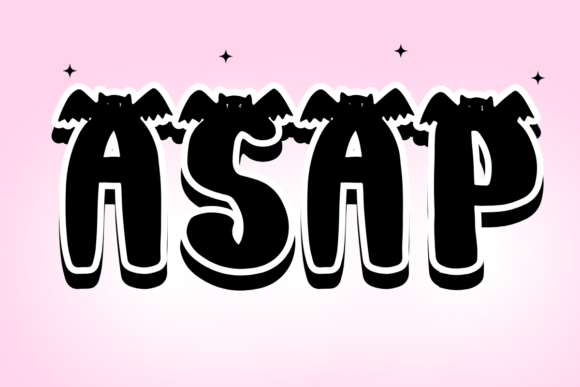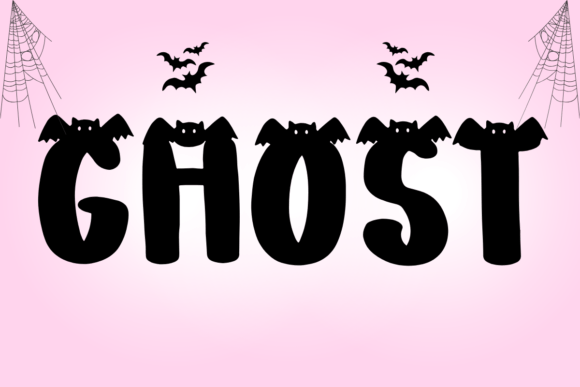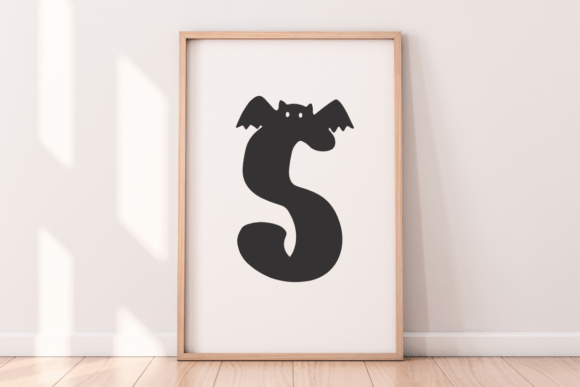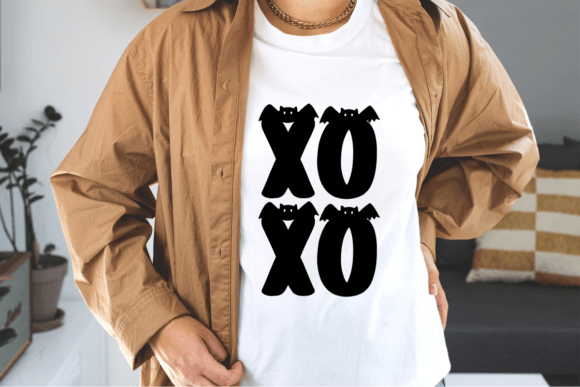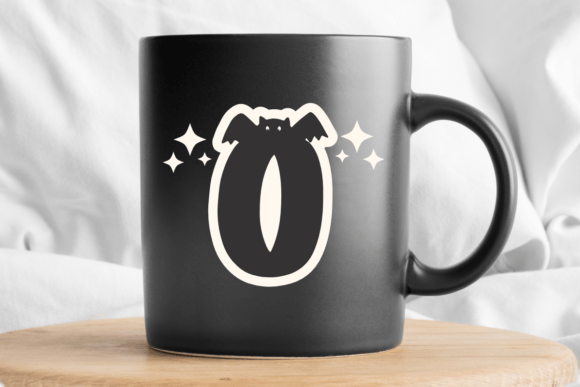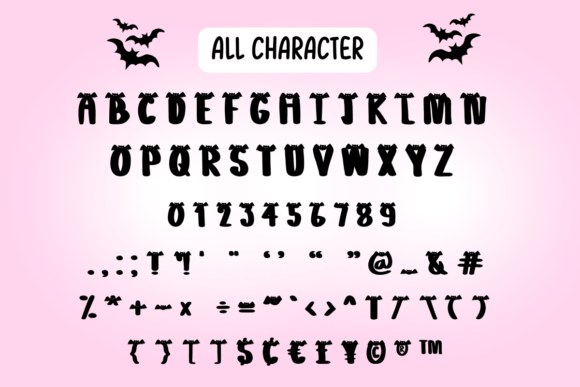
The Bat Font: A Spooky-Cute Addition to Your Design Arsenal
I’ll never forget the time I was working on a Halloween-themed project for a client, and I just couldn’t find the right font to capture the spooky-cute vibe I was going for. The design was supposed to be playful, yet eerie, and I was determined to nail it. That’s when I stumbled upon the Bat Font, and let me tell you, it was love at first sight! 💕
So, what makes the Bat Font so special? Here are a few things that I absolutely adore:
- ✨ It’s cool, cute, and quirky all at once, making it perfect for Halloween-themed designs or any project that needs a touch of whimsy.
- ✅ The font has a spooky, scary, and mysterious vibe that adds an incredibly joyful touch to your designs.
- 🌟 It’s a display font, which means it’s designed to make a statement and grab attention.
Of course, no font is perfect, and there are a few quirks to be aware of:
- 🤔 The Bat Font can be a bit overwhelming if used in large blocks of text or for body copy. It’s best used as a title font or for accents.
The Designer Inspiration Behind Bat Font
According to the font’s creators, the Bat Font was inspired by the magic and mystery of the night sky. They wanted to capture the essence of bats, spiders, and other creatures that come out at dusk, and create a font that’s both spooky and cute. Whether or not you believe in the supernatural, one thing’s for sure: the Bat Font is a design treasure.
| Font Name | Bat Font |
| Author | Khim08Studio |
| What type of font is Bat Font? | The Bat Font is a display font, designed for titles, headings, and accents. |
| Is Bat Font suitable for body copy? | No, the Bat Font is best used for headings, titles, or accents. It might be overwhelming for large blocks of text. |
| Does Bat Font support OpenType features? | Yes, the Bat Font supports OpenType features, glyphs, and stylistic alternates in compatible design programs. |